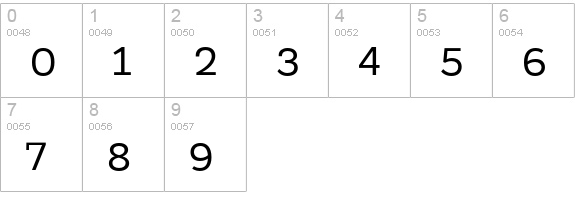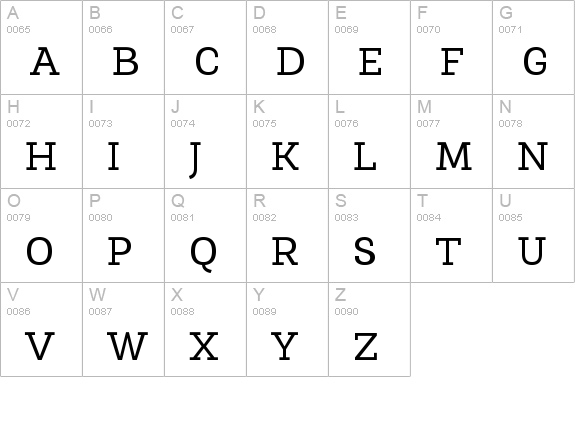
Newslab font is a modern and versatile typeface that combines classic elegance with a contemporary twist. Its clean lines and sharp edges make it perfect for a wide range of design projects, from editorial layouts to branding and packaging. The font exudes sophistication and professionalism, making it ideal for conveying a sense of authority and trustworthiness. What sets Newslab font apart is not only its aesthetic appeal but also its accessibility. This premium font is available for free download at FontsMarket.com, making it easily accessible to designers and creatives looking to enhance their projects with a touch of sophistication. Whether you're working on a website, a magazine spread, or a business card, Newslab font will elevate your design and leave a lasting impression on your audience. With its sleek design and timeless aesthetic, Newslab font is a versatile typeface that can adapt to any project or style. Download it for free today at FontsMarket.com and experience the impact this font can have on your designs.